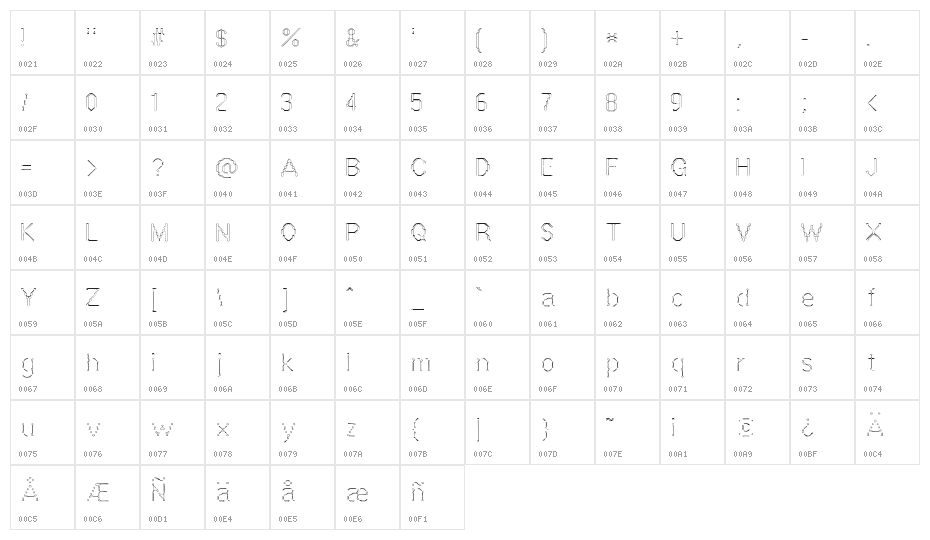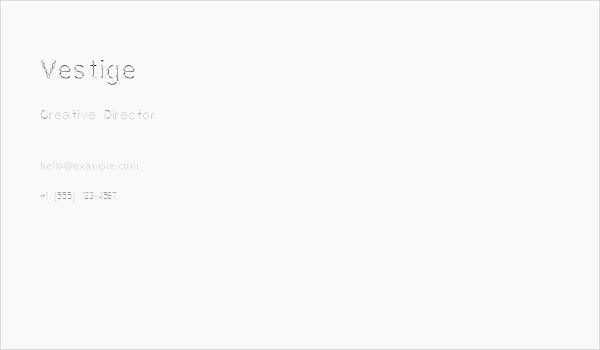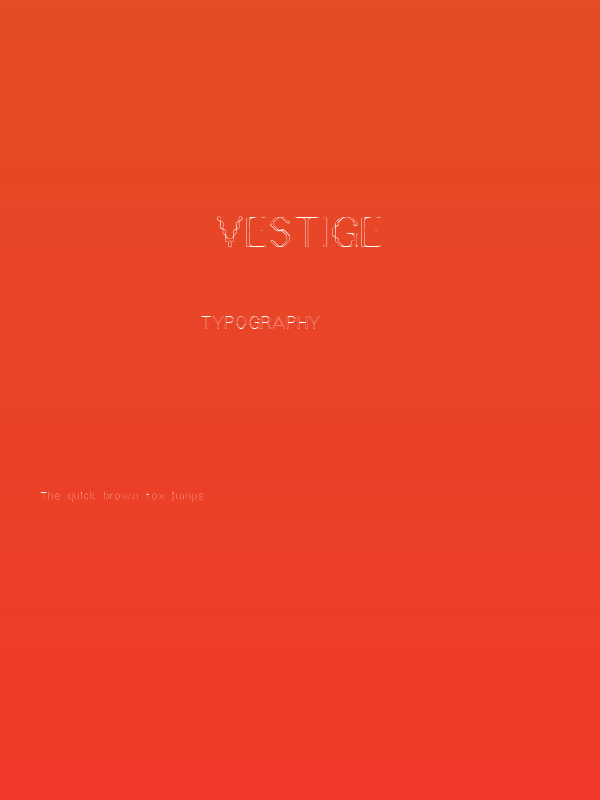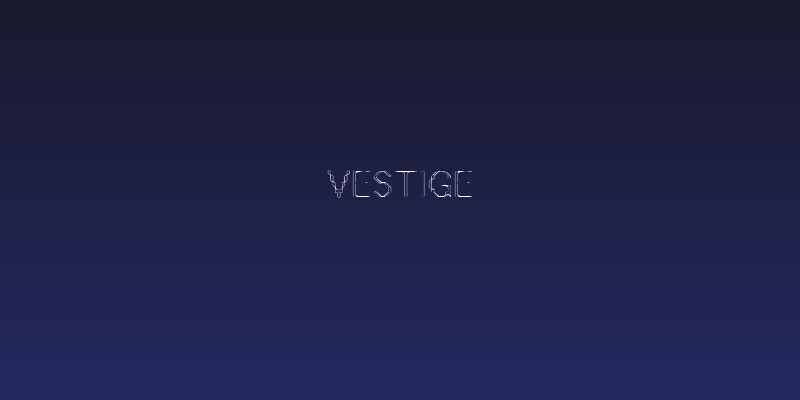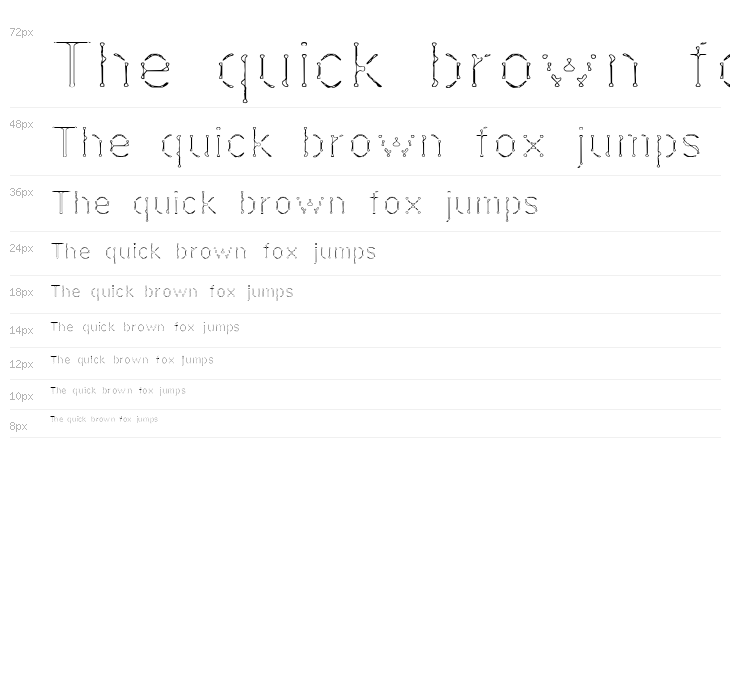
Vestige Font
Vestige Description
This font features a unique, futuristic design with a geometric and circuit-like appearance. Each character is constructed with a series of lines and dots, giving it a technical and digital feel. The uppercase letters are bold and structured, while the lowercase letters maintain a consistent style with slightly more curves. Numbers and special characters follow the same design principles, ensuring uniformity across all glyphs. The font's distinct style makes it stand out, ideal for projects that require a modern and innovative look.
| Proposed Projects | Ideal for tech-related branding, digital art projects, sci-fi themed designs, and innovative product packaging. |